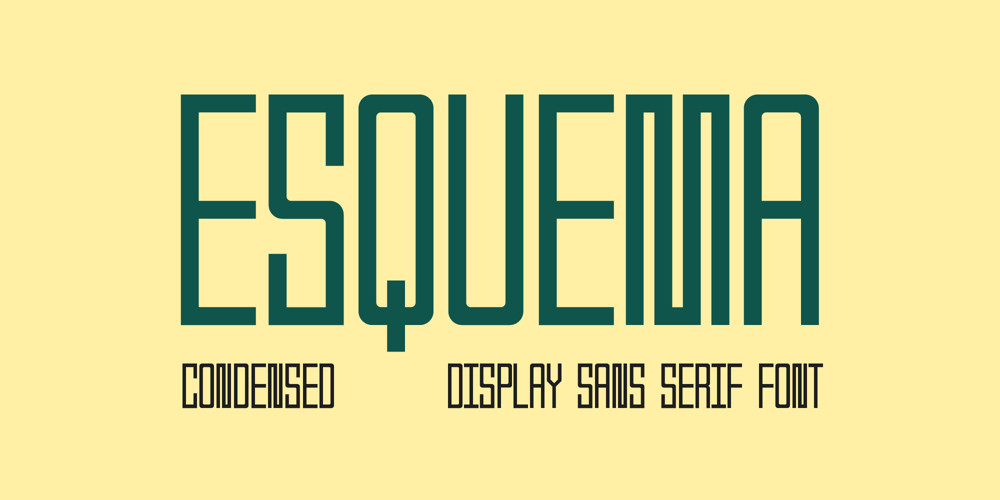
Esquema
Esquema font
Esquema Font Family was designed by Philippe Souza and published by Philippe Souza. Esquema contains 2 styles and family package options. Esquema is a versatile and modern typeface designed for both impact and style. With two distinct styles – Regular and Outline – it’s perfect for creating striking headlines, branding, editorial design, and stylish digital applications.The Regular style provides a bold, clean look, balancing readability with a contemporary edge, while the Outline variant adds an extra layer of sophistication, giving your designs a dimensional feel ideal for layering and creating visual depth. The Esquema family embodies a structured, geometric elegance that enhances any visual project with its sharp lines and balanced proportions. Whether you’re designing for print or digital media, Esquema’s clarity and boldness make it an excellent choice for users looking to make a statement.Esquema is built with OpenType features, including ligatures and alternates that enhance creativity and ease of use. With extensive multi-language support, this typeface is ready to make an impression in various languages, ensuring it’s accessible for diverse audiences and markets.